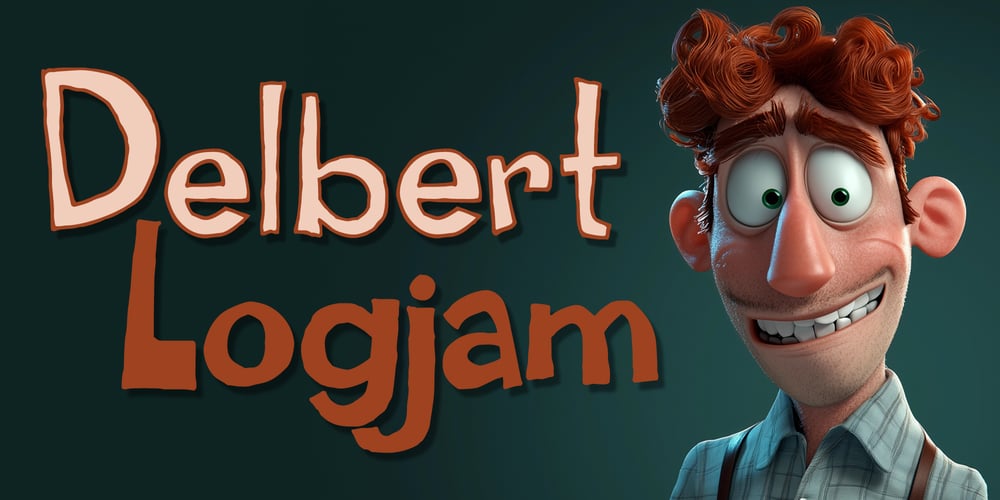
Delbert Logjam Font Family was designed by Brian J. Bonislawsky, Dave Cohen and published by One Eyed Squid. Delbert Logjam contains 2 styles and family package options. Hi there, I’m Delbert Logjam. Let’s try to be adult’s here and skip the made up nicknames and name calling.I’m all too often a bit nervous and withdrawn, but some people jokingly like to say I’m socially constipated. I just want to get this out! I want to be your friend, your font. Show me a little kindness, and I can be a fun font to design with in a pinch.(Delbert Logjam contains an extended Latin character set with added Vietnamese support.)